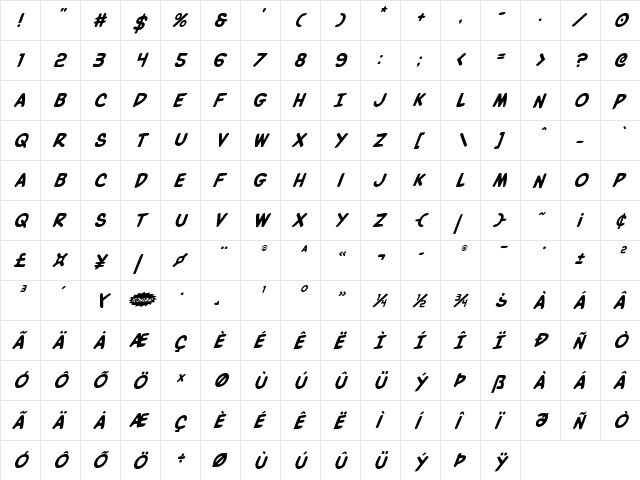
Villain Team-Up Super-Italic Regular
Design Context for Villain Team-Up Super-Italic Typeface
Villain Team-Up Super-Italic is a composed and adaptable typeface that performs quietly and consistently across a wide range of design contexts. The dynamic lean of this cut emphasises speed and emphasis in any layout.
Pro Tip: Try Villain Team-Up Super-Italic for annotation and caption copy alongside an upright companion — the contrast in angle creates a dynamic but ordered typographic system.